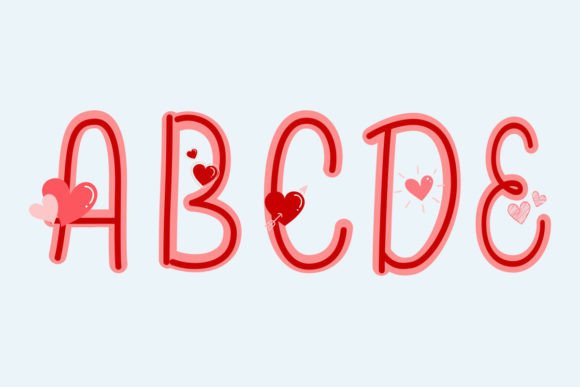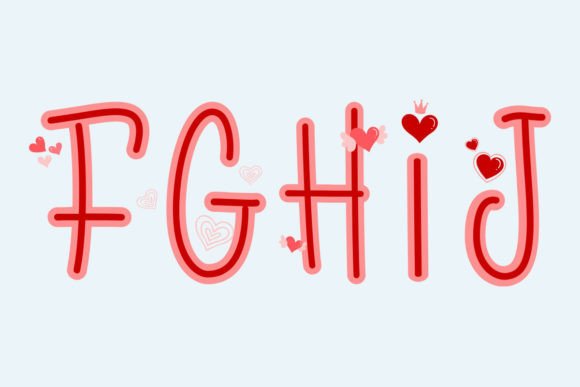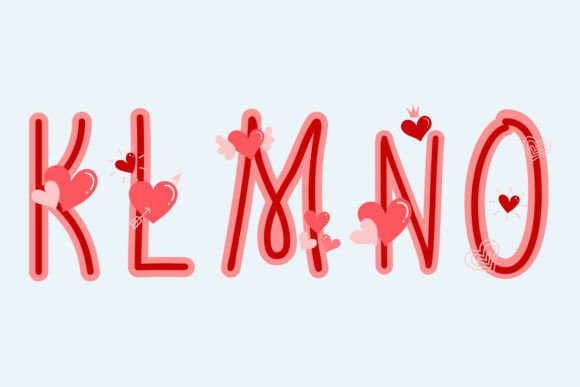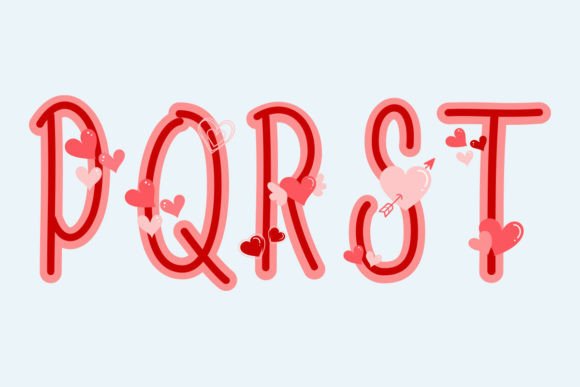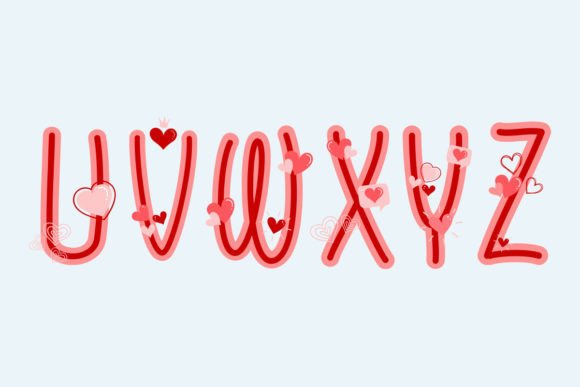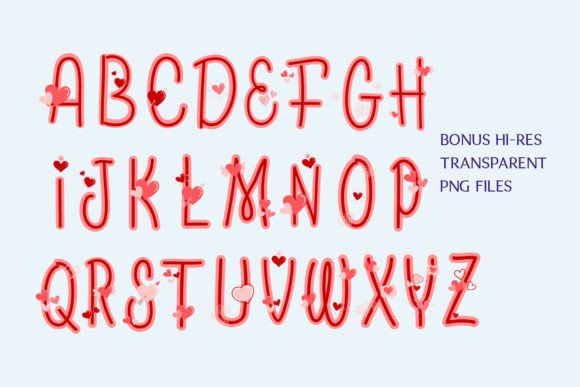
Frisia Sweet Font: Add a Touch of Sweetness to Your Creative Projects
Are you looking for a font that can add a dash of fun and playfulness to your creative projects? Look no further than Frisia Sweet, a cute and girly handwritten color font that’s perfect for designers and crafters alike. With its fresh and soft pink color palette, Frisia Sweet is sure to bring a joyful feel to your school projects, posters, merchandise, Valentine cards, and crafting projects.
What Makes Frisia Sweet So Special?
Frisia Sweet is a unique and charming font that’s designed to add a touch of sweetness to your creative projects. Its soft pink color palette is perfect for creating feminine and playful designs that are sure to capture the attention of your audience. Whether you’re working on a school project, designing a poster, or creating handmade merchandise, Frisia Sweet is the perfect choice.
Key Features of Frisia Sweet Font
- Cute and Girly Design: Frisia Sweet has a playful and feminine design that’s perfect for creating fun and engaging designs.
- Fresh and Soft Pink Color Palette: The font’s soft pink color palette is perfect for creating designs that are sweet and charming.
- Handwritten Style: Frisia Sweet has a handwritten style that’s perfect for adding a personal touch to your designs.
- Multipurpose: The font can be used for a variety of projects, including school projects, posters, merchandise, Valentine cards, and crafting projects.
Uses of Frisia Sweet Font
Frisia Sweet is a versatile font that can be used for a wide range of creative projects. Here are some ideas to get you started:
- School Projects: Add a touch of fun and playfulness to your school projects with Frisia Sweet.
- Posters: Create eye-catching posters with Frisia Sweet that’s sure to capture the attention of your audience.
- Merchandise: Design fun and playful merchandise, such as t-shirts, stickers, and tote bags, with Frisia Sweet.
- Valentine Cards: Create sweet and charming Valentine cards with Frisia Sweet.
- Crafting Projects: Add a personal touch to your crafting projects, such as scrapbooking and card making, with Frisia Sweet.
Tips for Using Frisia Sweet Font
Here are some tips for using Frisia Sweet to get the most out of this beautiful font:
- Experiment with Colors: While Frisia Sweet comes with a soft pink color palette, you can experiment with different colors to match your brand or project’s theme.
- Pair with Other Fonts: Pair Frisia Sweet with other fonts to create a unique and interesting design.
- Use for Headings and Titles: Use Frisia Sweet for headings and titles to add a touch of fun and playfulness to your designs.
- Add Graphics and Illustrations: Add graphics and illustrations to your designs to make them more engaging and interesting.
Frisia Sweet is a beautiful and charming font that’s perfect for designers and crafters who want to add a touch of sweetness to their creative projects. With its fresh and soft pink color palette, Frisia Sweet is sure to bring a joyful feel to your school projects, posters, merchandise, Valentine cards, and crafting projects. So why not give Frisia Sweet a try and see how it can elevate your designs to the next level?
Whether you’re a seasoned designer or a crafter looking for a new font to add to your collection, Frisia Sweet is a great choice. Its versatility, playfulness, and charm make it the perfect font for anyone looking to add a dash of fun and personality to their creative projects.